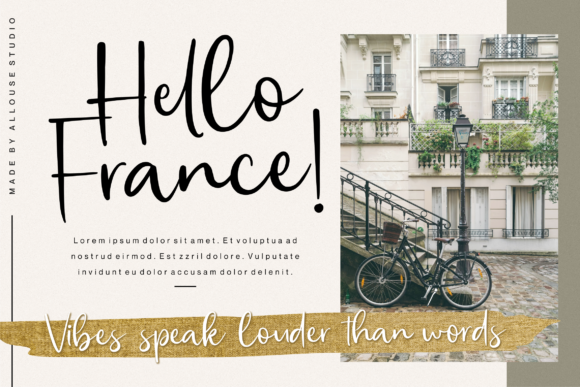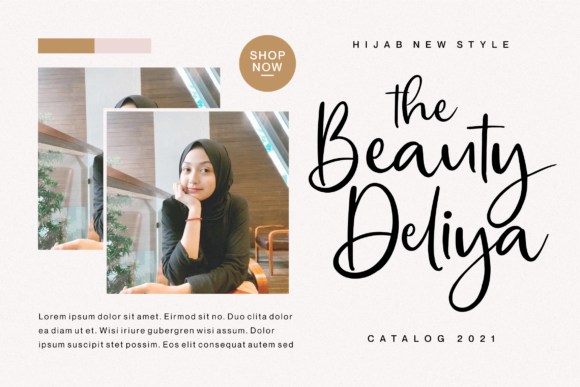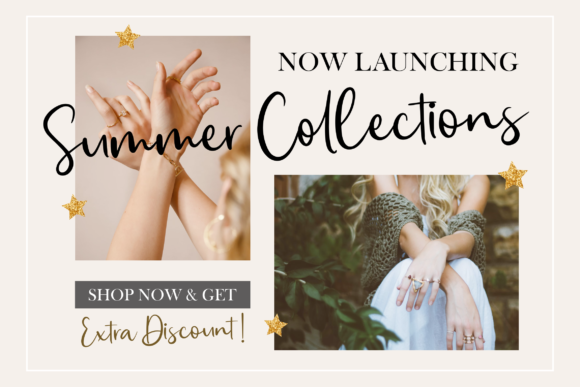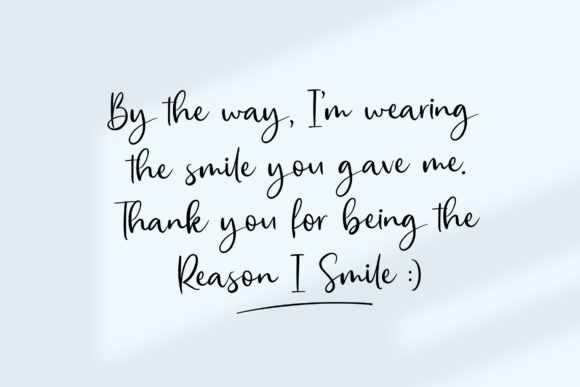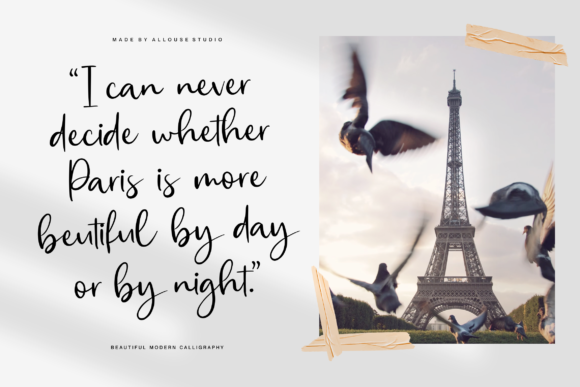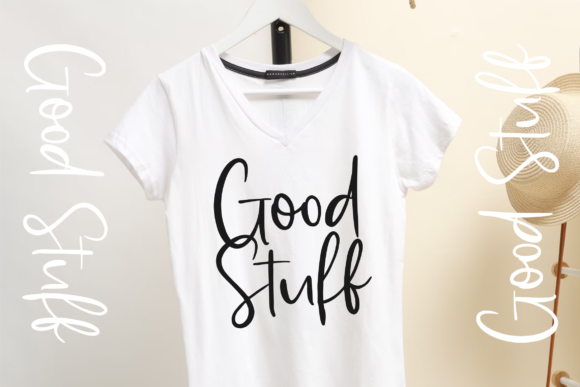
Introduction to Eiffel Story Font
Eiffel Story is a lovely script font featuring charming, playful characters that seem to dance along the baseline.
Add this font to your most creative ideas, and notice how it makes them stand out .
Key Features of Eiffel Story Font
Why Choose Eiffel Story Font?